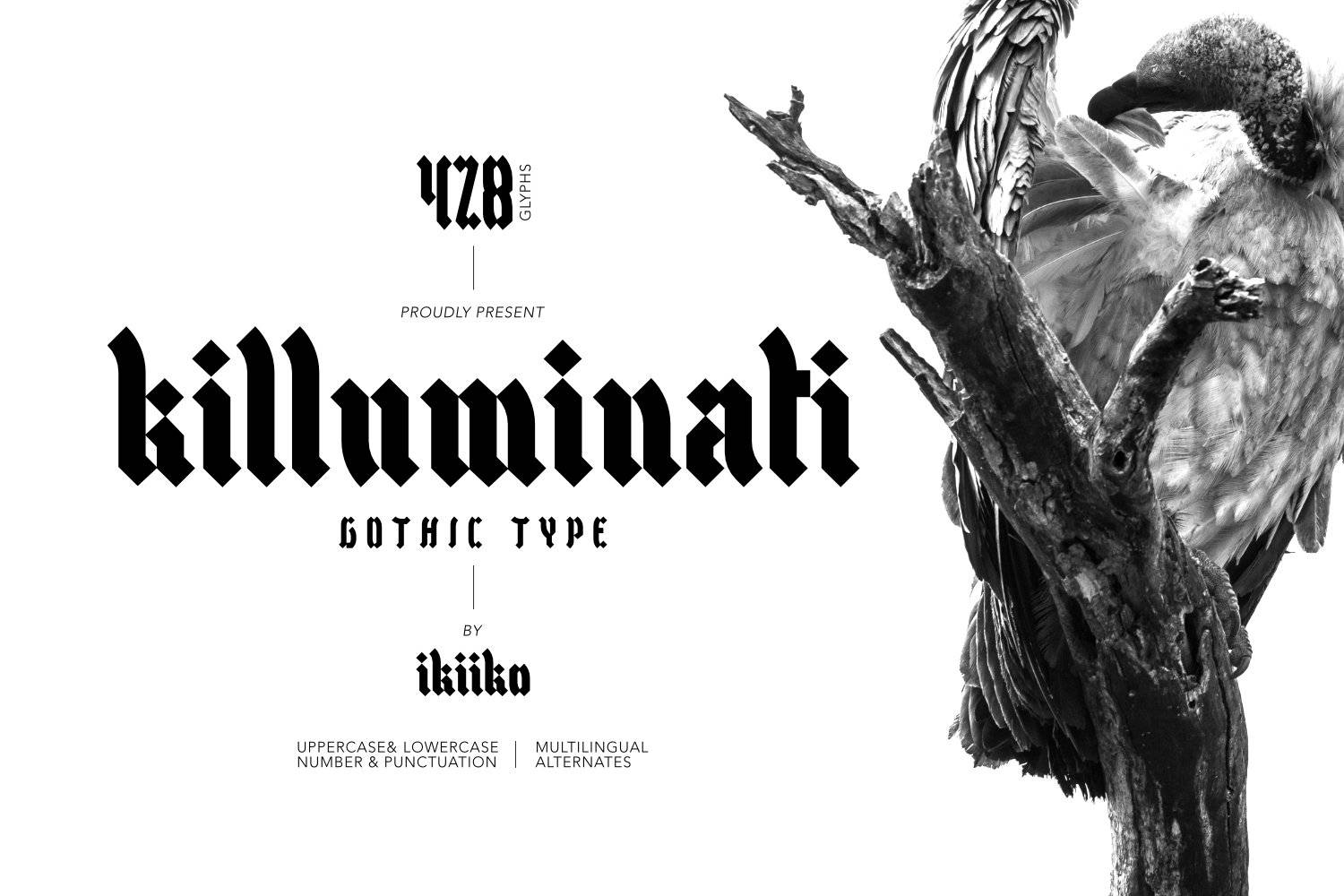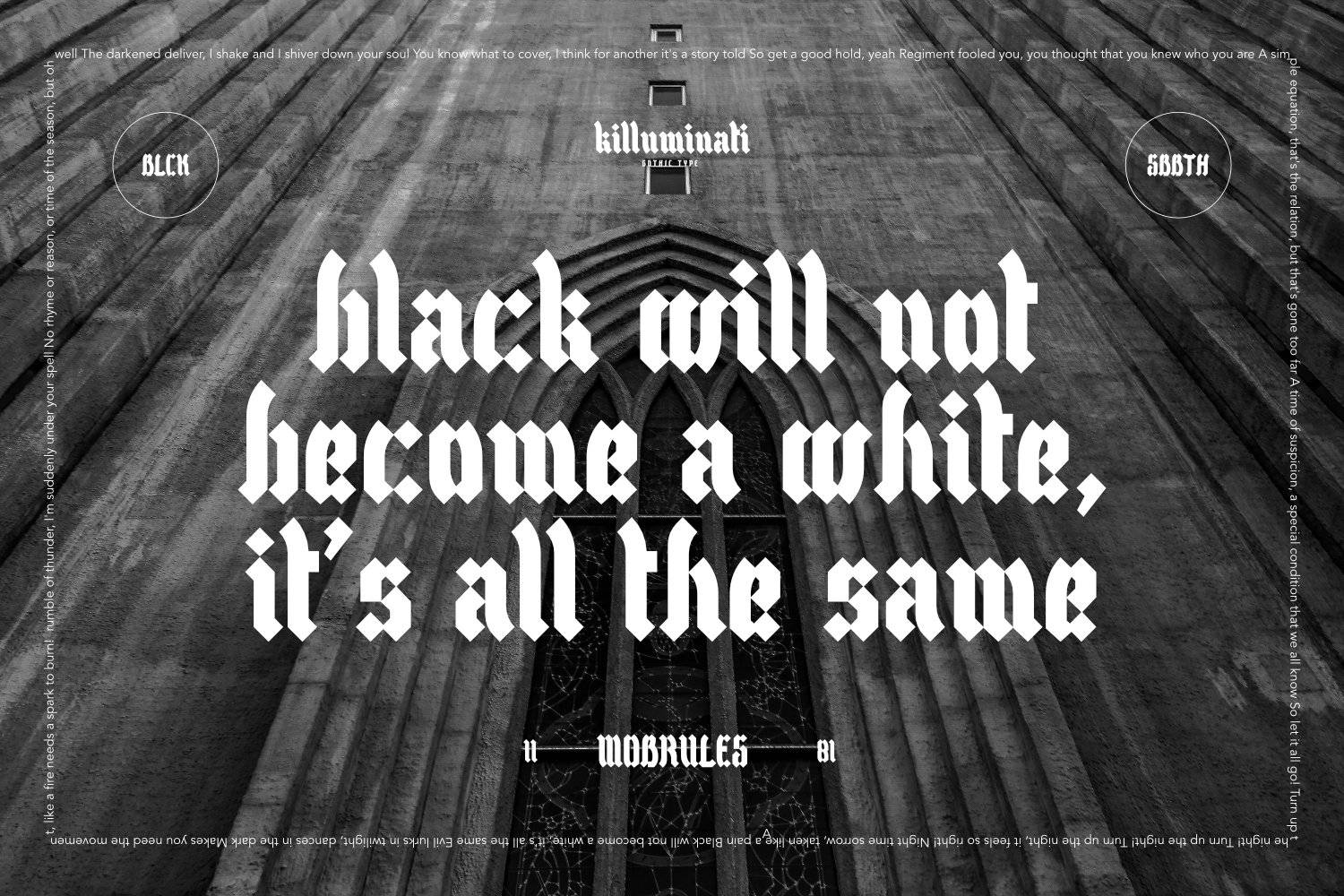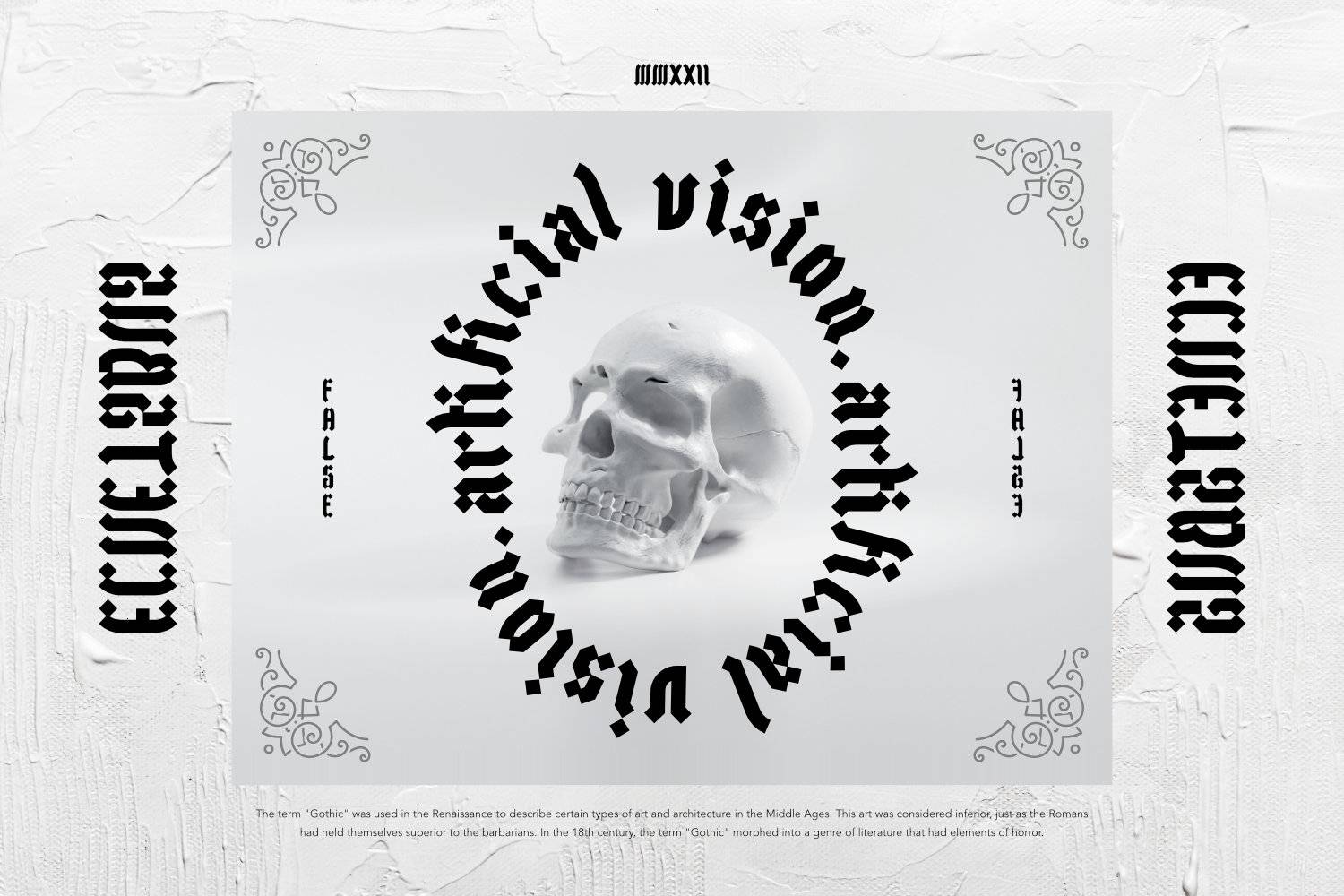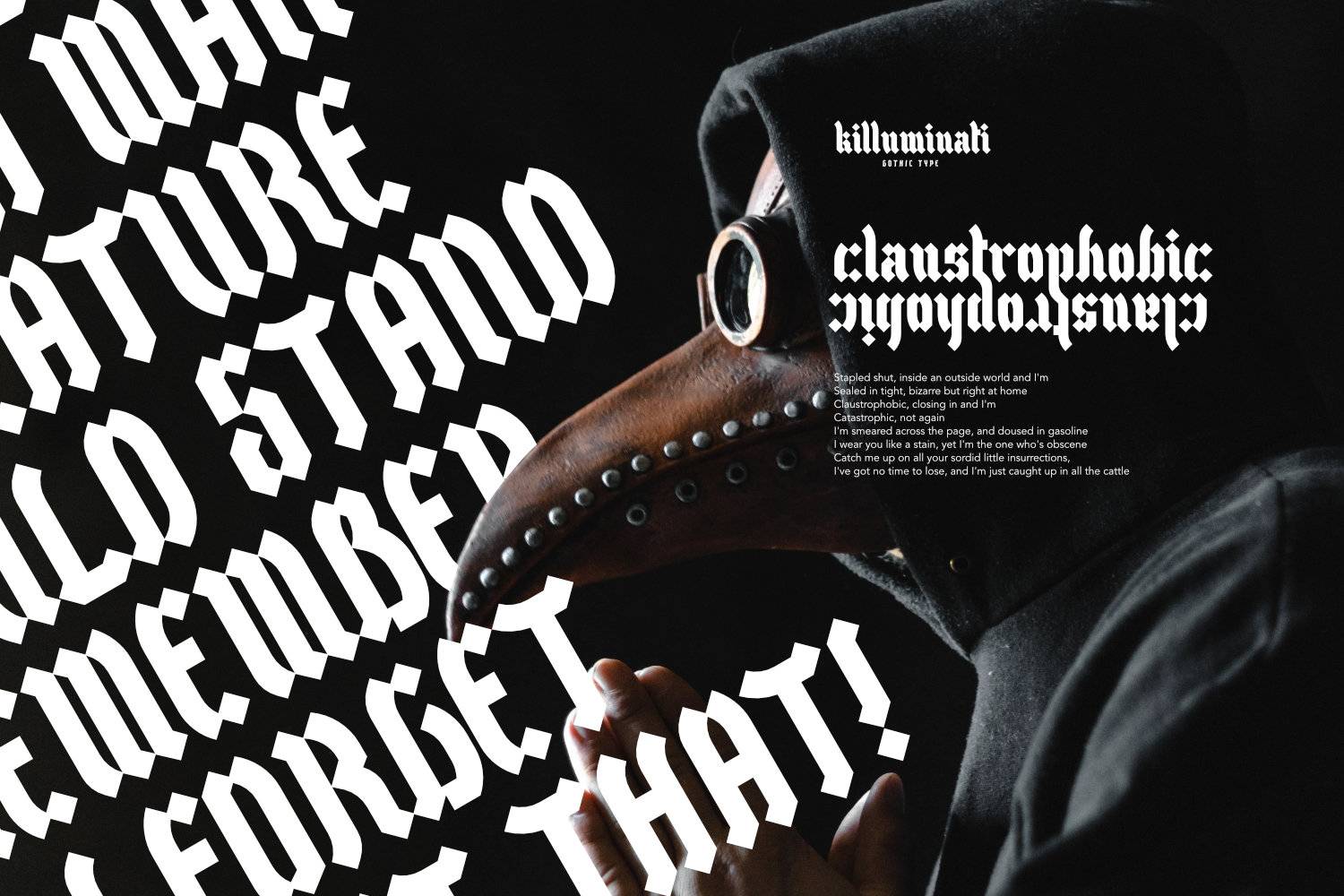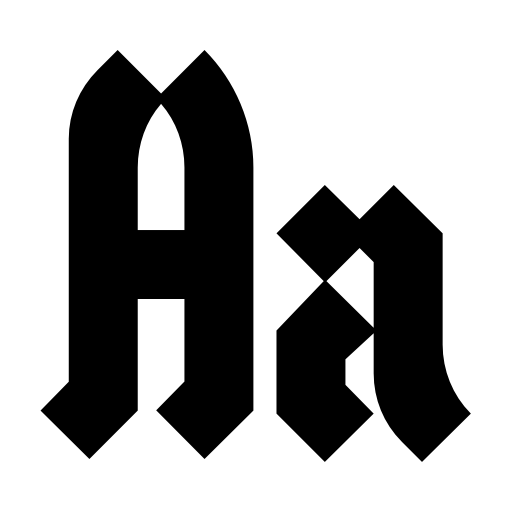
Killuminati is a bold blackletter font with a strong, Gothic character and sharp, angular strokes that create a dramatic and intense look. Its condensed width and uniform stroke weight give it a compact, impactful appearance ideal for striking headlines and edgy branding. This font works well for designs seeking a dark, historical, or rebellious vibe, such as music logos, tattoos, and posters where a bold statement is needed.
Killuminati Font
| Designer | Andhika Pradana, Wahyu Eka Prasetya |